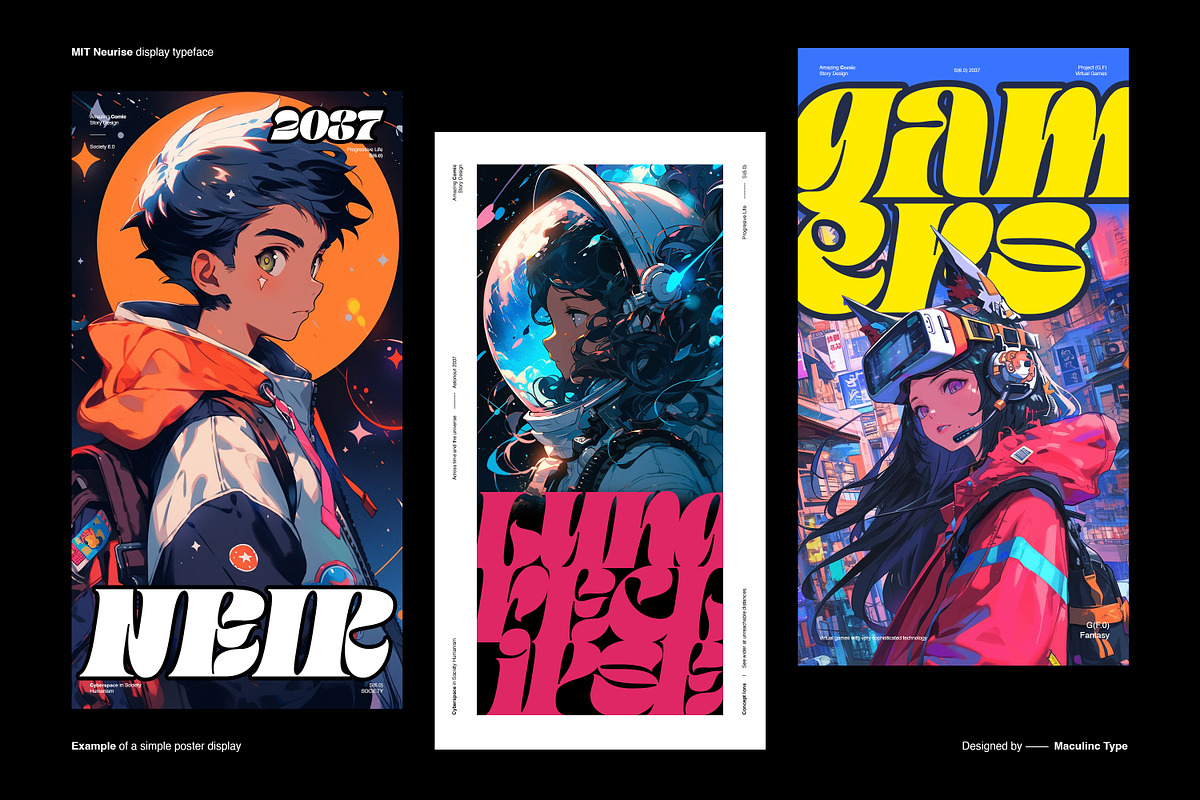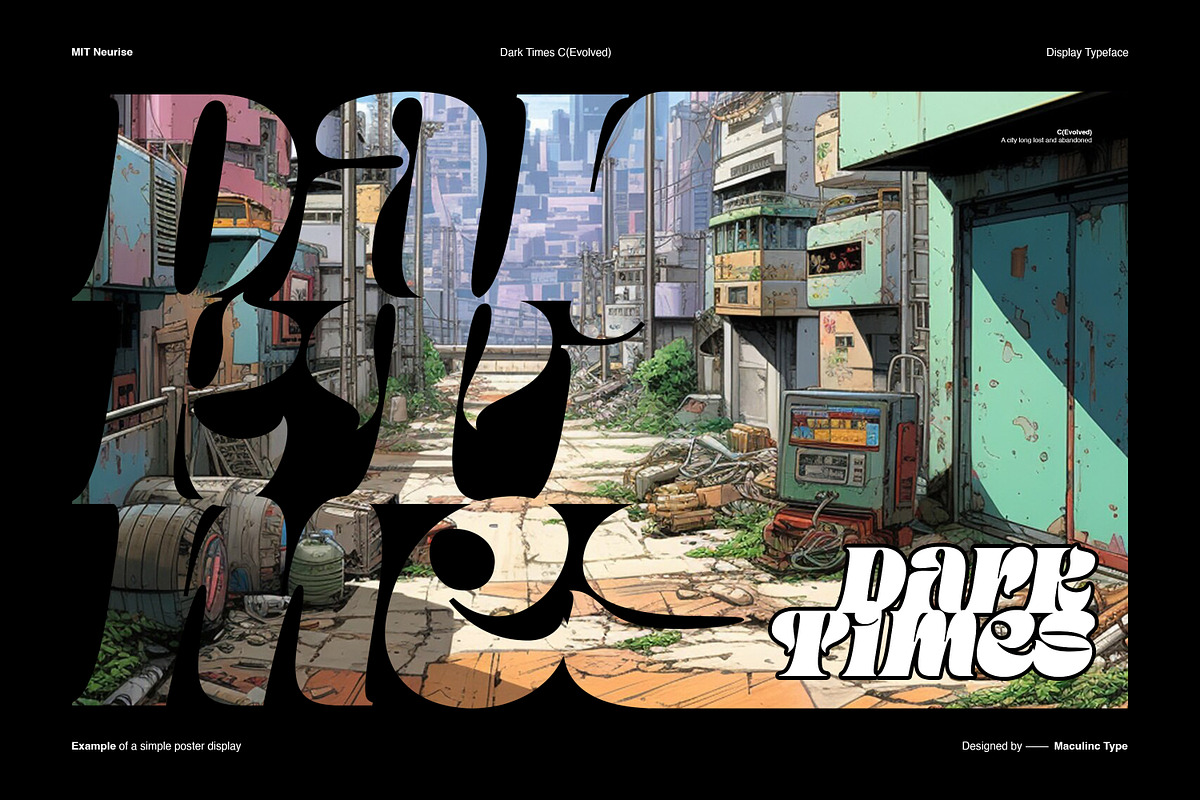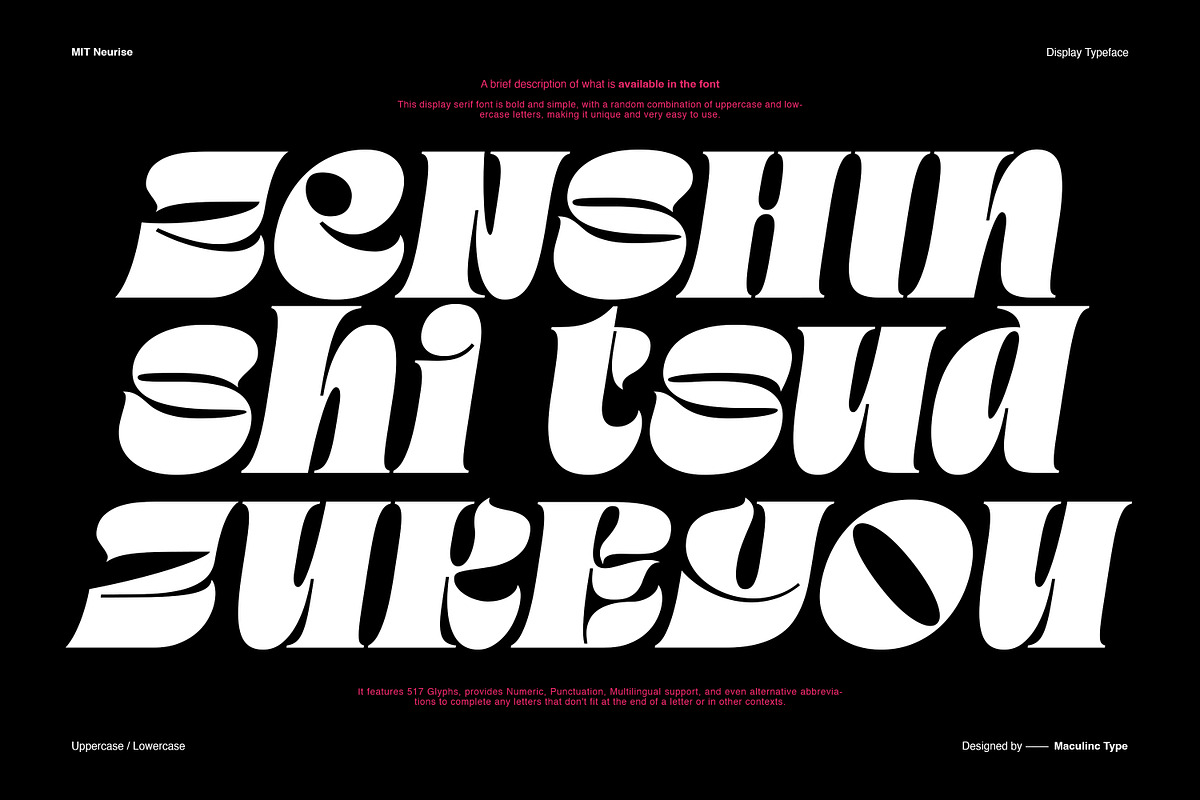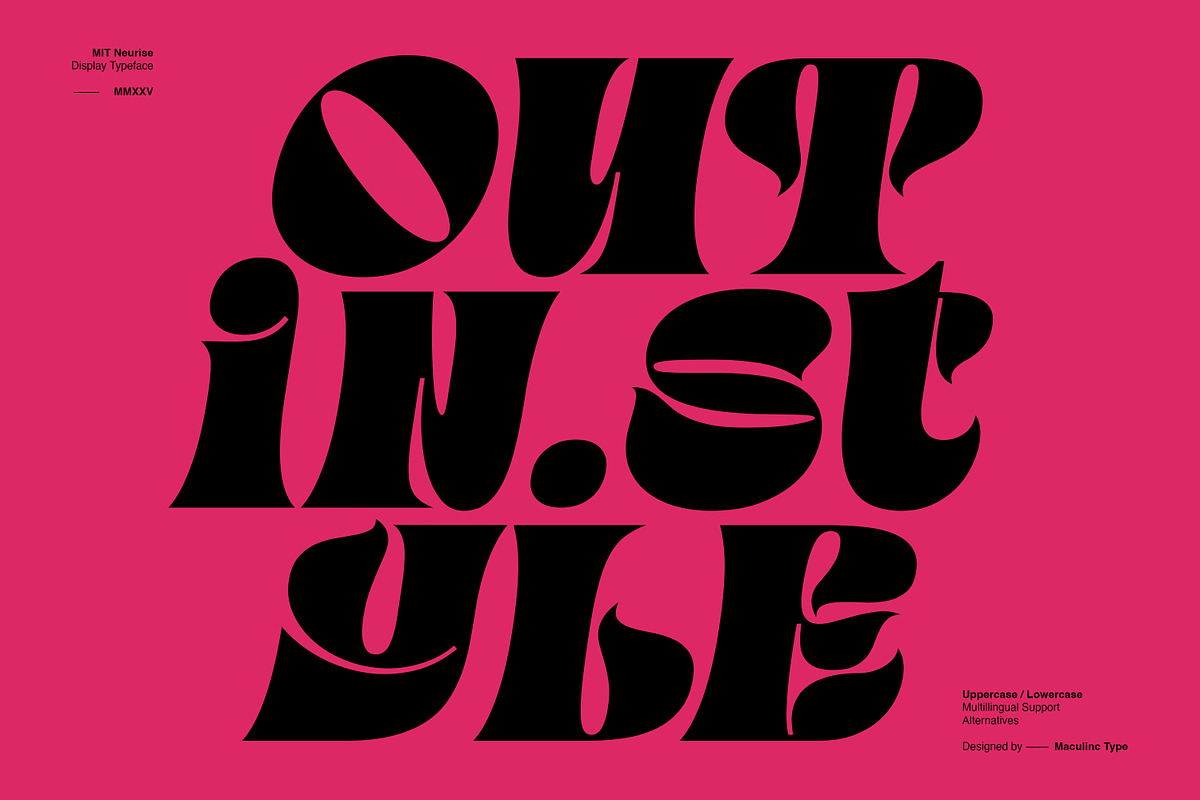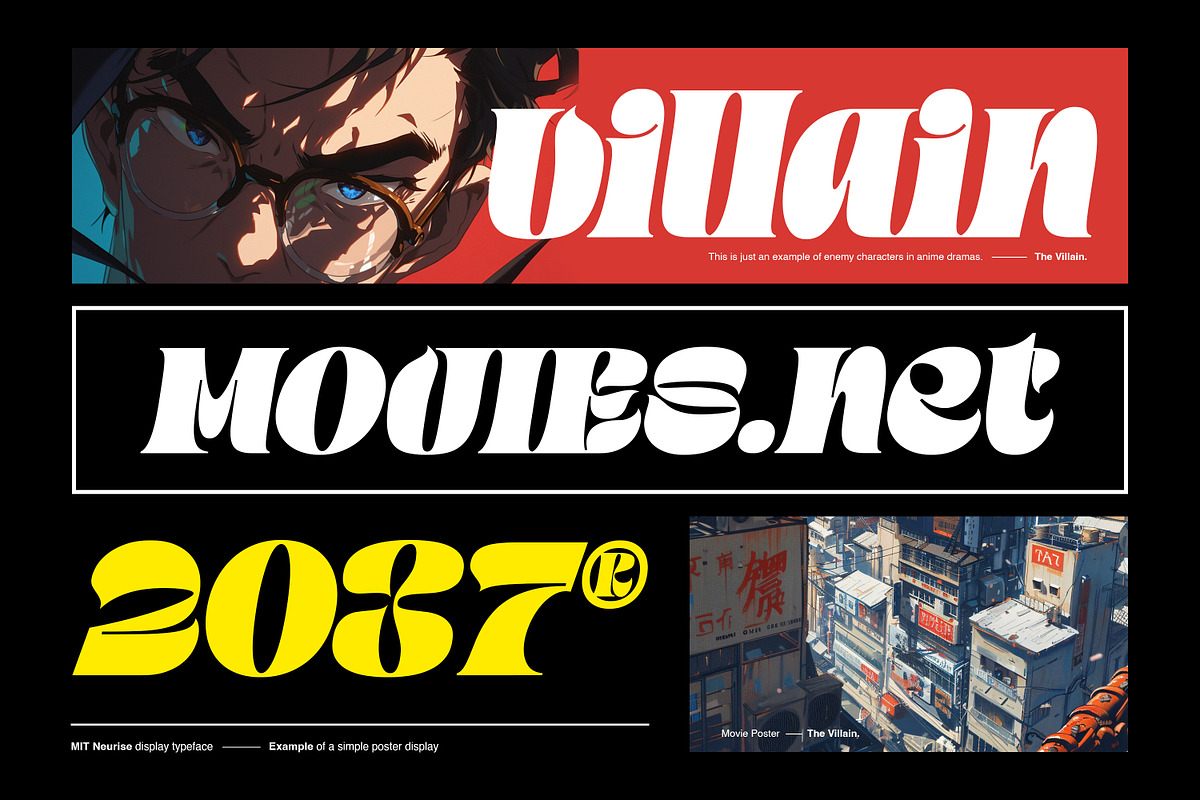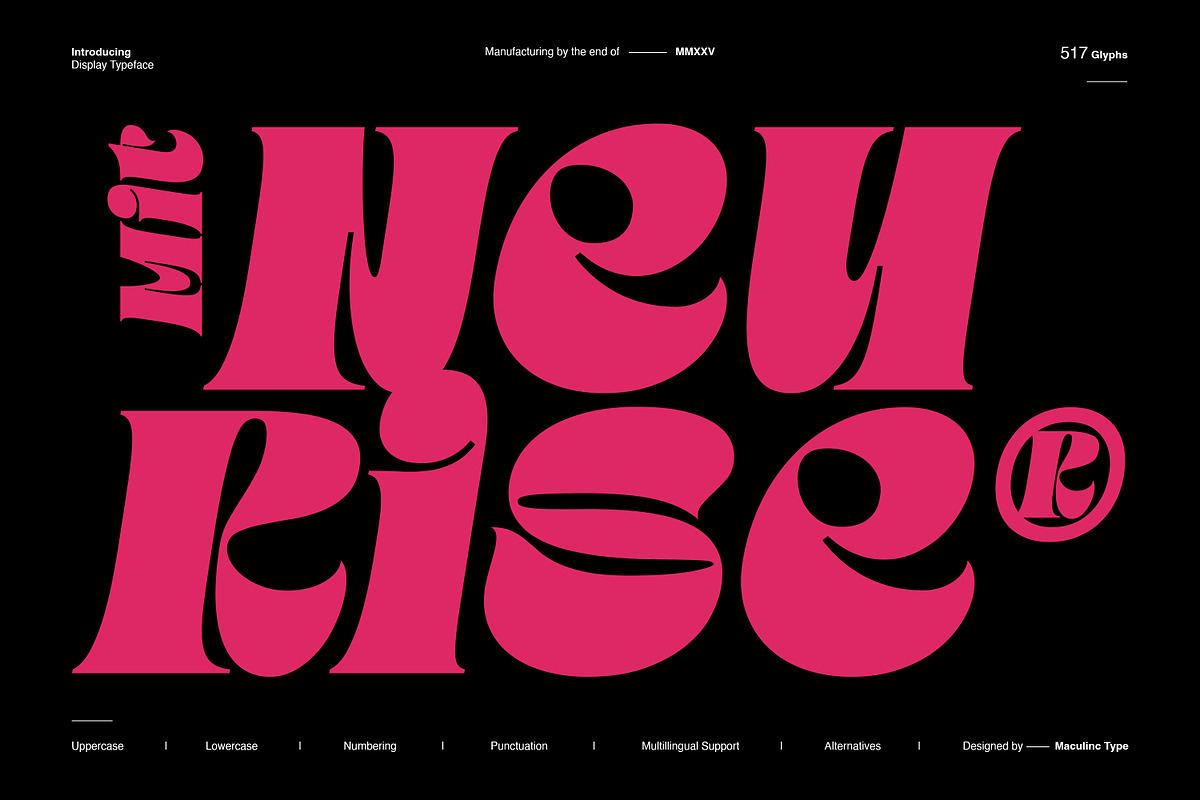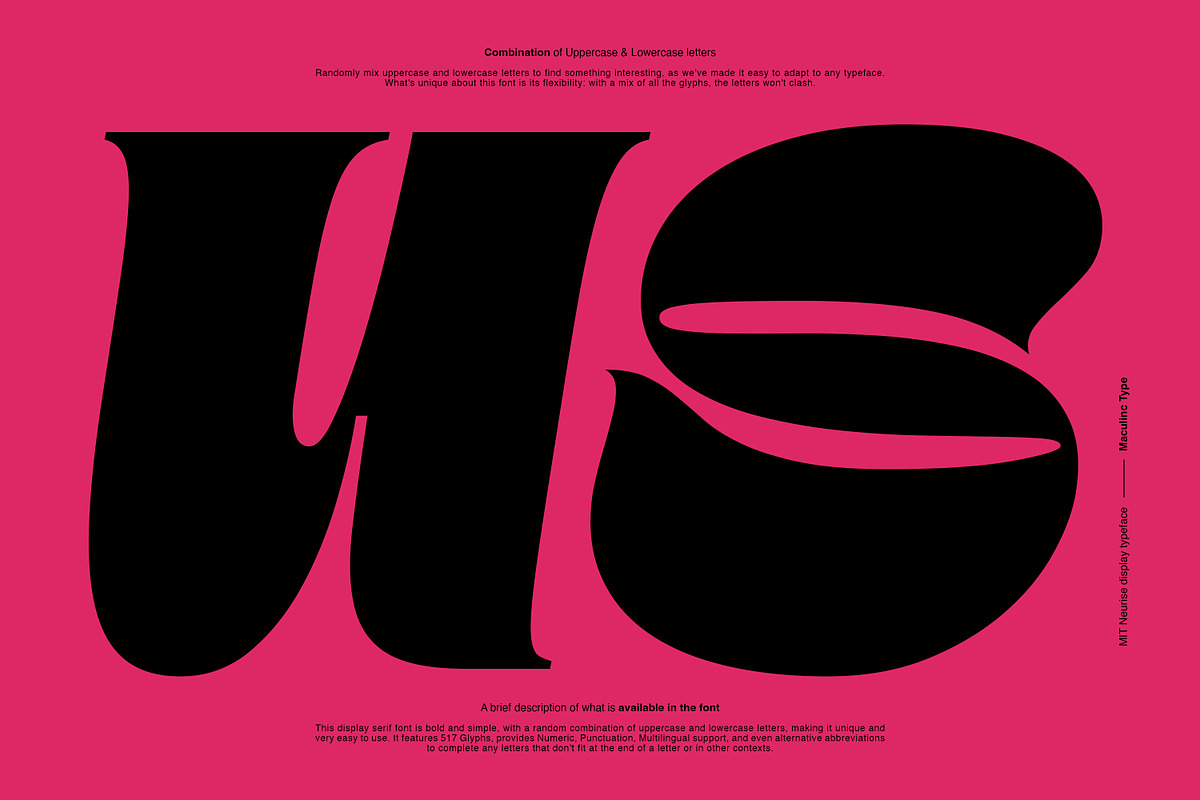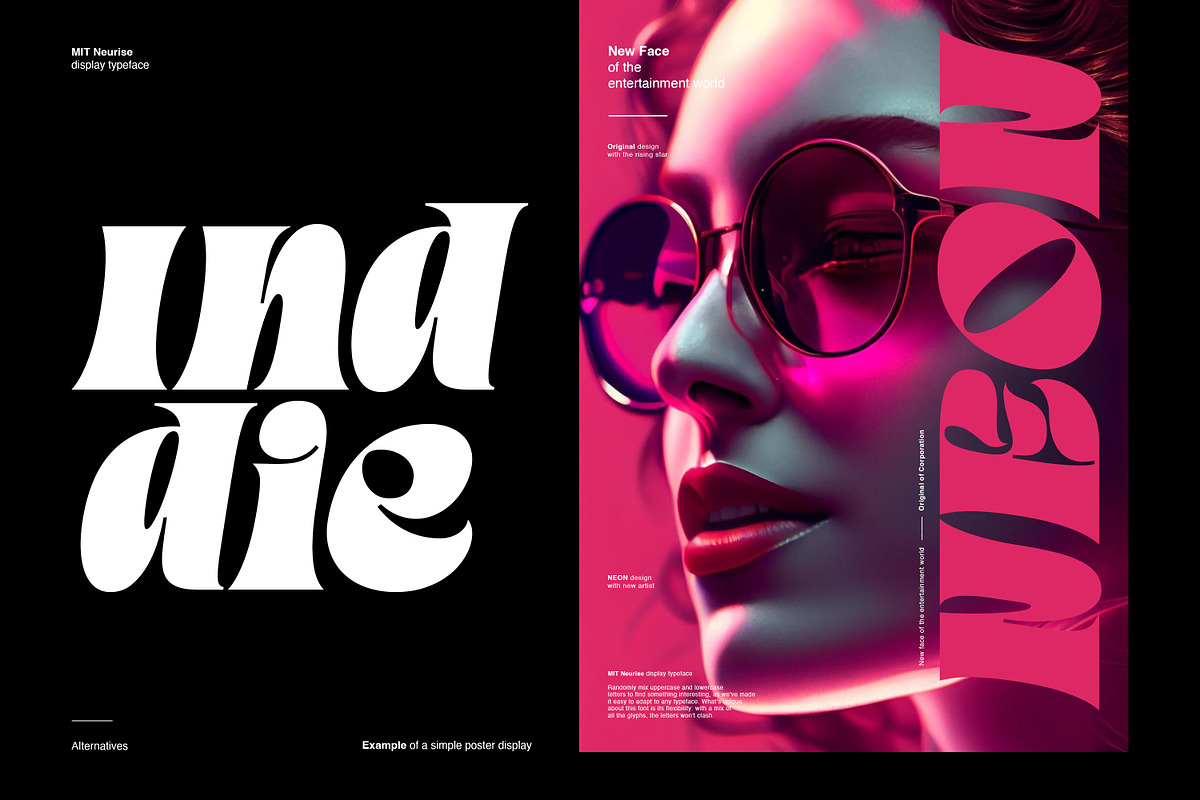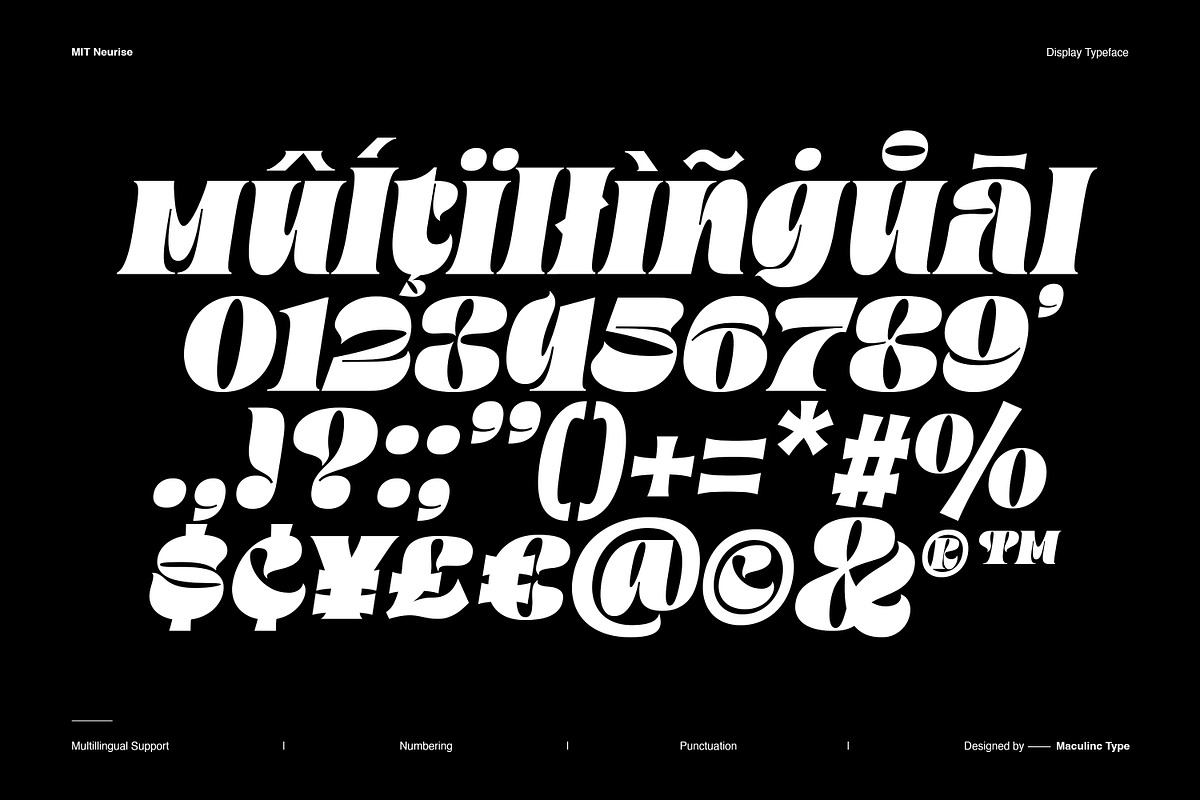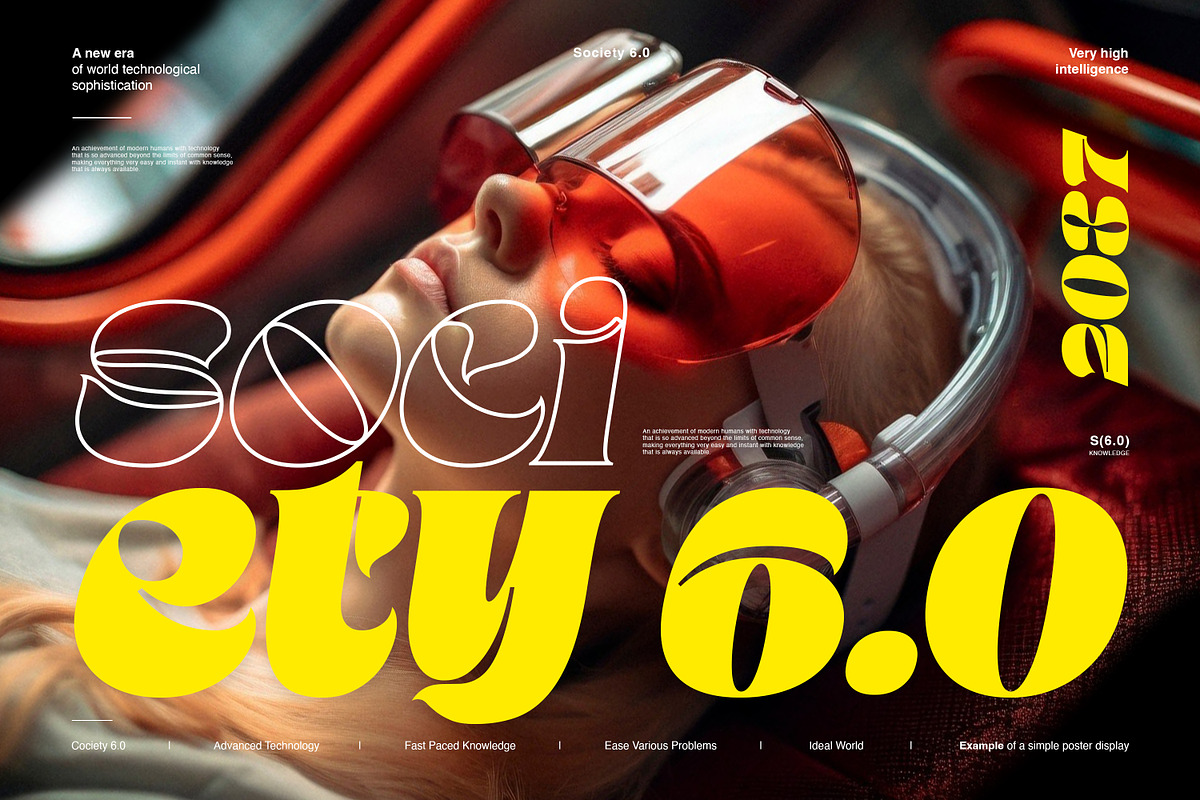
MIT Neurise
MIT Neurise — Modern Display Serif Typeface
MIT Neurise is a modern display serif typeface designed for contemporary visual communication. Built on classic serif foundations and refined with clean, modern curves, it presents a confident and elegant typographic character.
Designed for professional use, MIT Neurise performs especially well in headlines, branding, editorial layouts, and visual identities. A set of alternative glyphs allows designers to create flexible and distinctive typographic compositions, giving logos and titles a more intentional and custom feel.
MIT Neurise includes a complete character set with uppercase and lowercase letters, numerals, punctuation, and multilingual support, ensuring consistent and reliable results across a wide range of digital and print projects. Balanced proportions and clean spacing help achieve polished outcomes with minimal adjustment.
MIT Neurise is well suited for designers seeking a modern display serif that is expressive, versatile, and commercially reliable.